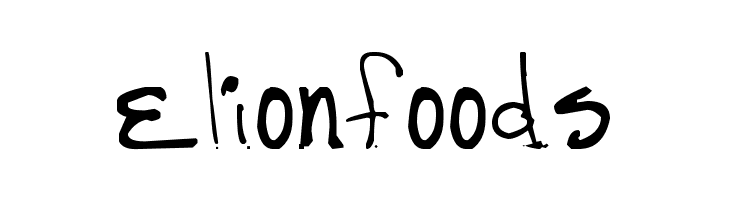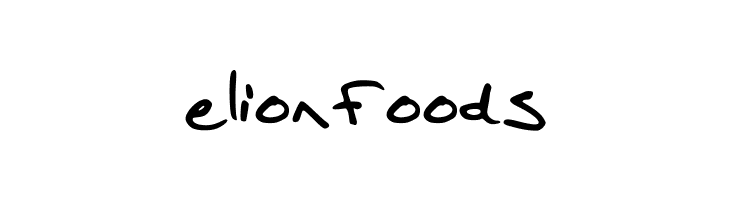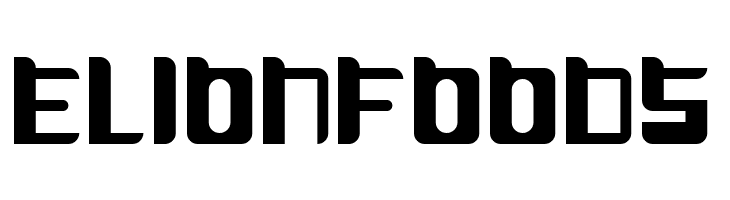
• Move Along Regular
A bold, geometric font with a futuristic and edgy design.
• MPOK hand
• Mr and Mrs Popsicle
A playful, handwritten font with bold, rounded strokes and a whimsical style.
• Mr. Ortiz
• MRT_Talat
A modern geometric font with consistent stroke width and elegant numerals.
• MTF Base
A bold, modern sans-serif font with clean lines and balanced proportions.
• MTF Becki
A playful, handwritten font with a casual and friendly appearance.
• MTF Ca Maura
A playful, whimsical script font with a handwritten feel.
• MTF Cindy
A playful, handwritten font with whimsical, dynamic strokes and decorative elements.
• MTF Colleen Cursive
A playful and flowing cursive font with a handwritten appearance.